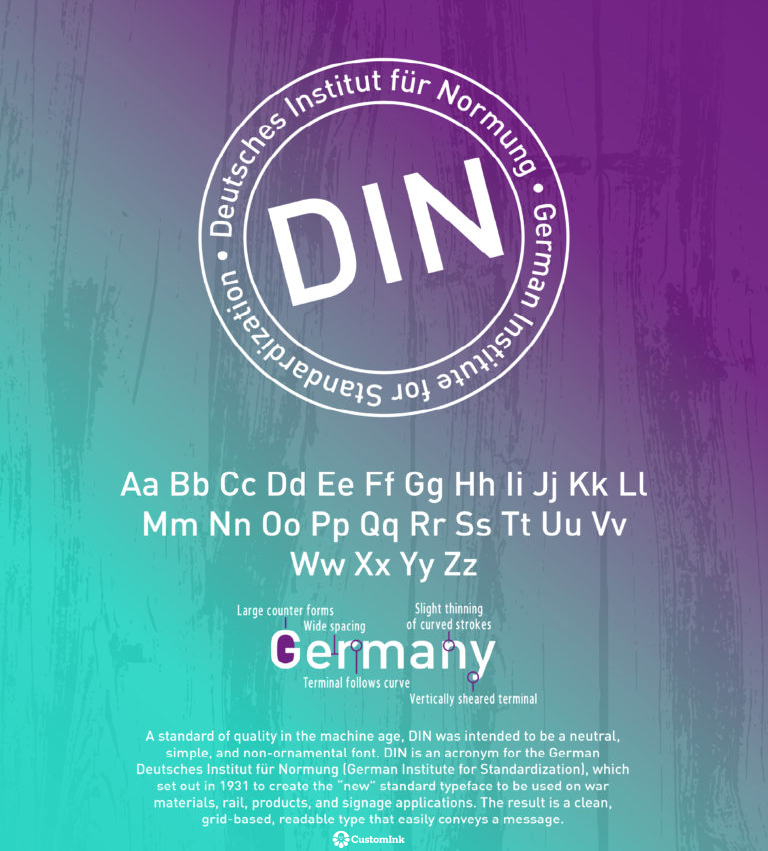
Font of the Week — Din
You may recognize Din and not even know it— it’s most popular for it’s use in traffic signs around the world. Created in Germany in 1931, Din actually stands for Deutsches Institut für Normung, or the German Institute for Standardization. Din’s clean, grid-based type was meant to convey simple messages quickly with it’s wide spacing and slight thinning on the curved strokes.